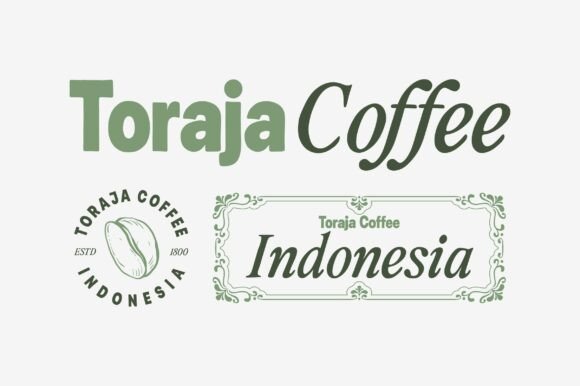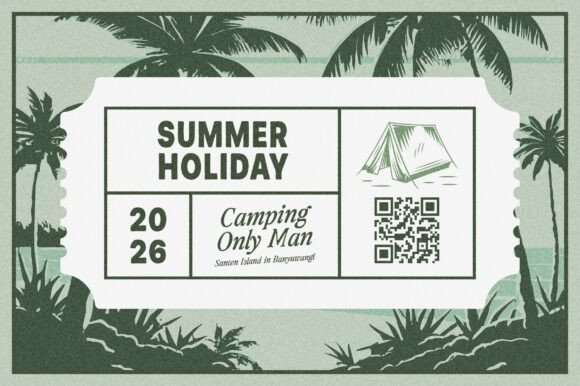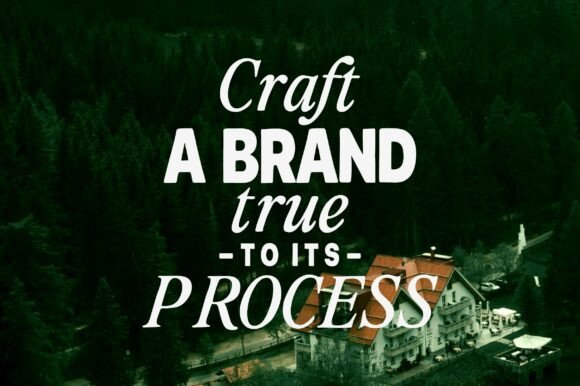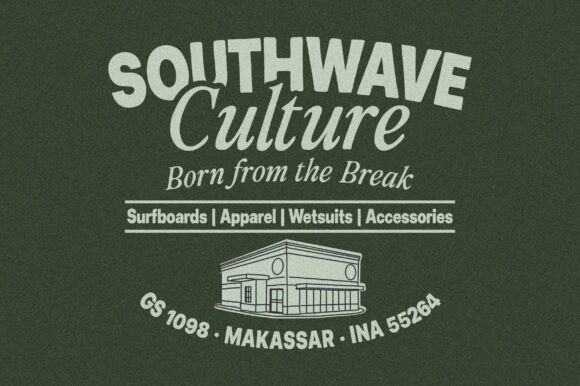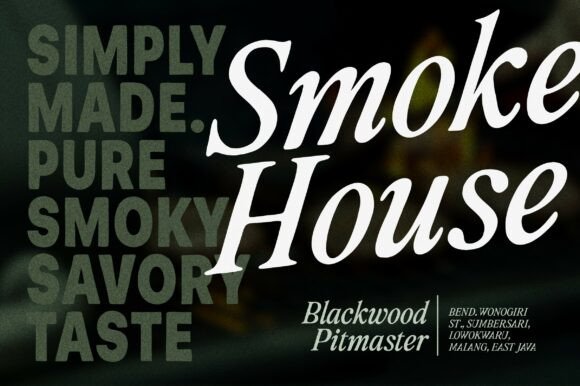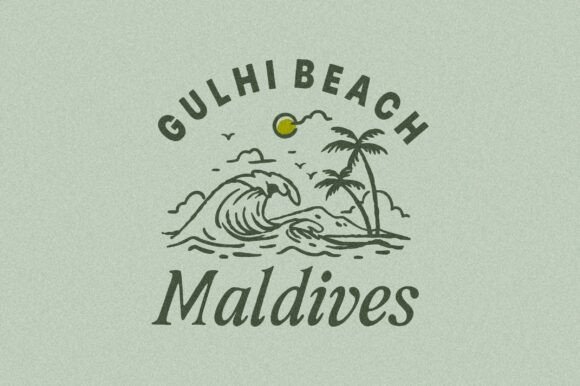
Introducing Eloura Blend Font: The Perfect Duo for Modern Design
In the world of typography, finding the right font duo can make all the difference in creating visually stunning and effective designs. Eloura Blend Font is a modern font duo that brings together an elegant serif and a clean, simple sans serif, designed to feel natural and easy to read while carrying a strong and distinctive character.
The Perfect Pairing: Serif and Sans Serif
Eloura Blend Font consists of two complementary fonts: an elegant serif and a clean, simple sans serif. The serif font adds a sense of warmth and refinement, making it perfect for designs that require a touch of sophistication. On the other hand, the sans serif font keeps things fresh, clear, and modern, making it ideal for designs that require a clean and minimalist look.
The pairing of these two fonts is designed to feel natural and easy to read, making it perfect for a wide range of design needs, including branding, editorial layouts, logos, packaging, posters, and social media. The combination of the serif and sans serif fonts creates a beautiful visual contrast that adds depth and interest to any design.
One of the standout features of Eloura Blend Font is its versatility. This font duo works beautifully across many design needs, making it a valuable addition to any designer’s toolkit. Whether you’re working on a branding project, creating an editorial layout, designing a logo, or crafting a poster, Eloura Blend Font is the perfect choice.
The font duo’s versatility can be attributed to its clean and simple design, which makes it easy to pair with other design elements. The serif font’s warmth and refinement, combined with the sans serif font’s modern and clean look, make it easy to create designs that are both visually appealing and effective.
Key Features of Eloura Blend Font
- Elegant Serif Font: Adds a sense of warmth and refinement to any design
- Clean and Simple Sans Serif Font: Keeps things fresh, clear, and modern
- Natural and Easy to Read: Designed to feel natural and easy to read, making it perfect for body text and headlines
- Versatile: Works beautifully across many design needs, including branding, editorial layouts, logos, packaging, posters, and social media
- Strong and Distinctive Character: Carries a strong and distinctive character that adds depth and interest to any design
Why Choose Eloura Blend Font?
With so many font duos available, why choose Eloura Blend Font? Here are just a few reasons why designers and crafters love this modern font duo:
- Unique and Memorable: The combination of the serif and sans serif fonts creates a unique and memorable look that sets your designs apart
- Easy to Read: The natural and easy-to-read design makes it perfect for body text and headlines
- Versatile: Works beautifully across many design needs, making it a valuable addition to any designer’s toolkit
- Modern and Fresh: The clean and simple design keeps things fresh, clear, and modern
Tips for Using Eloura Blend Font
Here are a few tips for getting the most out of Eloura Blend Font:
- Use the Serif Font for Headlines: The serif font’s warmth and refinement make it perfect for headlines and titles
- Use the Sans Serif Font for Body Text: The clean and simple design makes it easy to read and perfect for body text
- Experiment with Font Sizes: Play around with different font sizes to create visual interest and hierarchy in your designs
- Pair with Other Design Elements: Don’t be afraid to pair Eloura Blend Font with other design elements, such as images and graphics, to create visually stunning designs
| Font Name | Eloura Blend Font |
| Author | ergibi studio |
Eloura Blend Font is a modern font duo that brings together an elegant serif and a clean, simple sans serif, designed to feel natural and easy to read while carrying a strong and distinctive character. With its versatility, unique and memorable look, and ease of use, this font duo is perfect for designers and crafters looking to elevate their designs. Whether you’re working on a branding project, creating an editorial layout, designing a logo, or crafting a poster, Eloura Blend Font is the perfect choice.